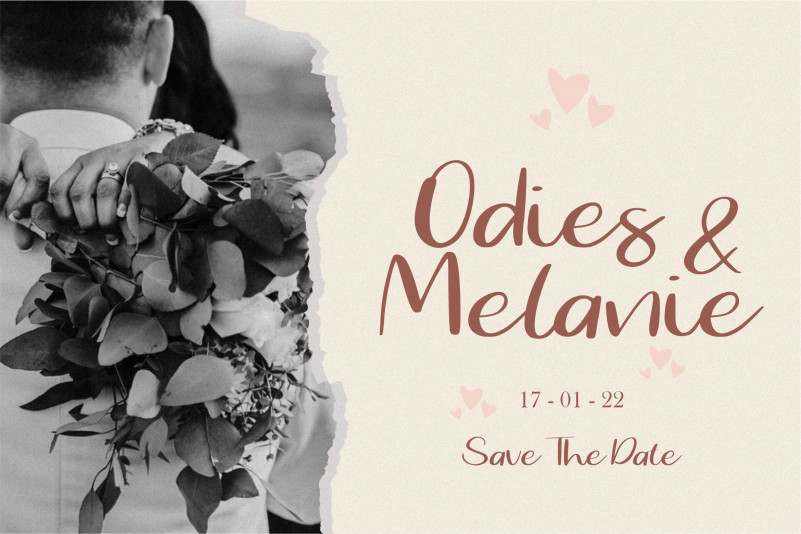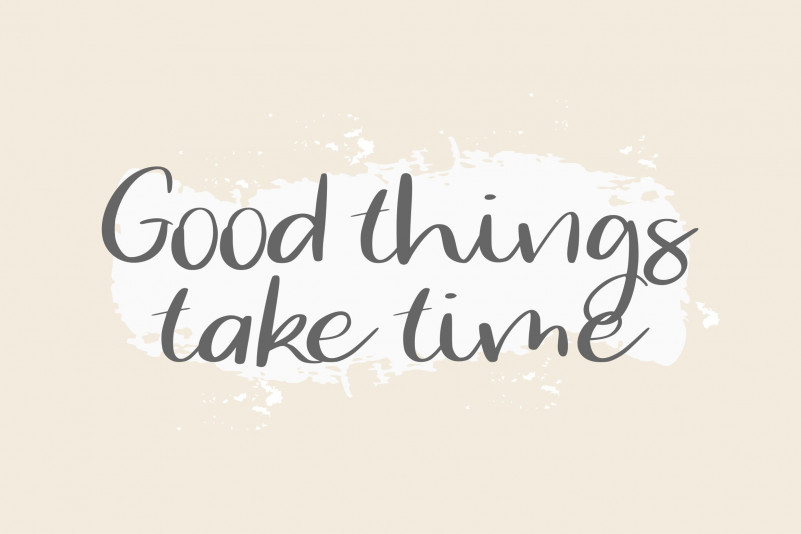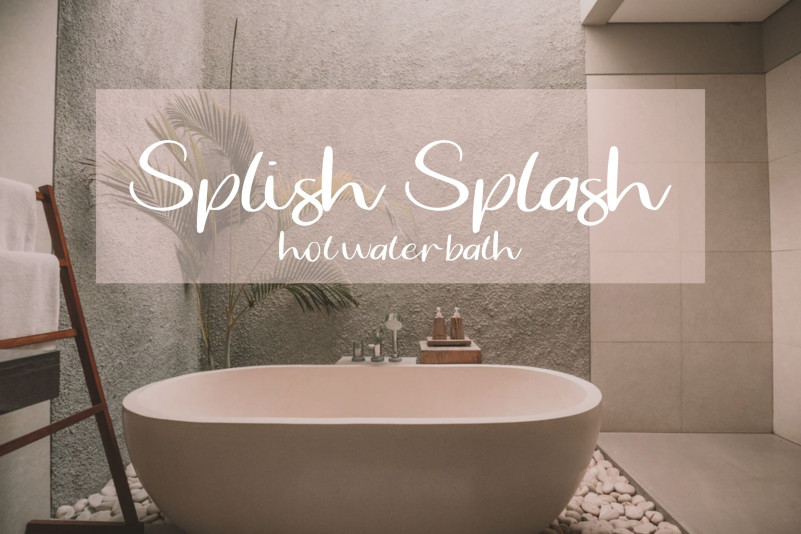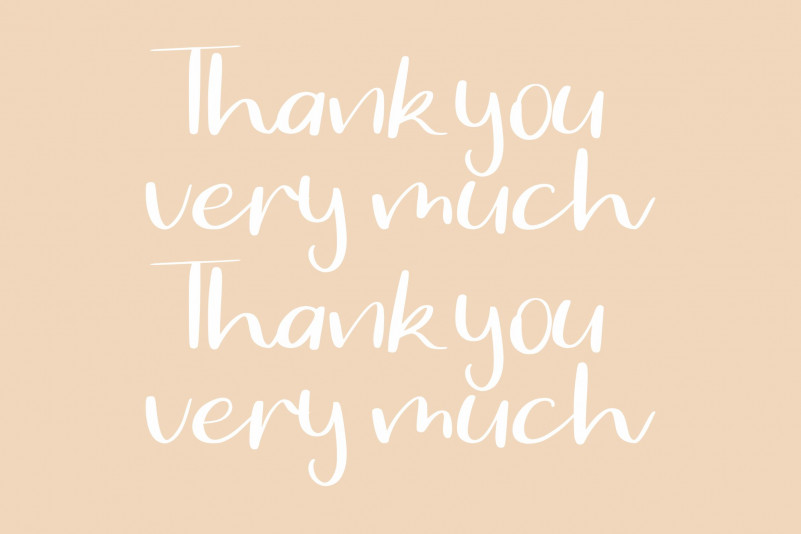
Blessing Splash Script Font
Is a Handwritten Font. Blessing Splash can be used for wide ranges of application, such as wedding design, branding project, logo, poster, name card, invitations, social media posts, and others.